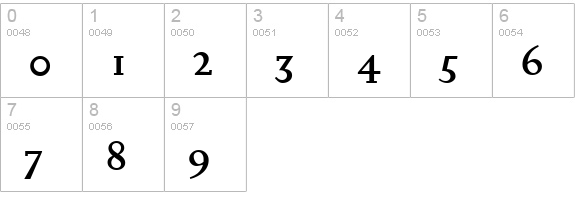
Josie-Regular is the standard, neutral variant in the Josie typeface family \xE2\x80\x94 well suited to general body text, paragraphs, and standard typographic work.
Josie-Regular is a versatile and stylish font that exudes a sense of modernity and elegance. With its clean lines and balanced proportions, this font is perfect for a wide range of design projects, from branding to editorial design. Whether you're creating a sleek logo or crafting a sophisticated website, Josie-Regular is sure to elevate your work to the next level. Best of all, Josie-Regular is completely free to download at FontsMarket.com. This means you can access this beautiful font without any cost, making it a valuable addition to your design toolkit. So why wait? Download Josie-Regular today and add a touch of sophistication to your next project.